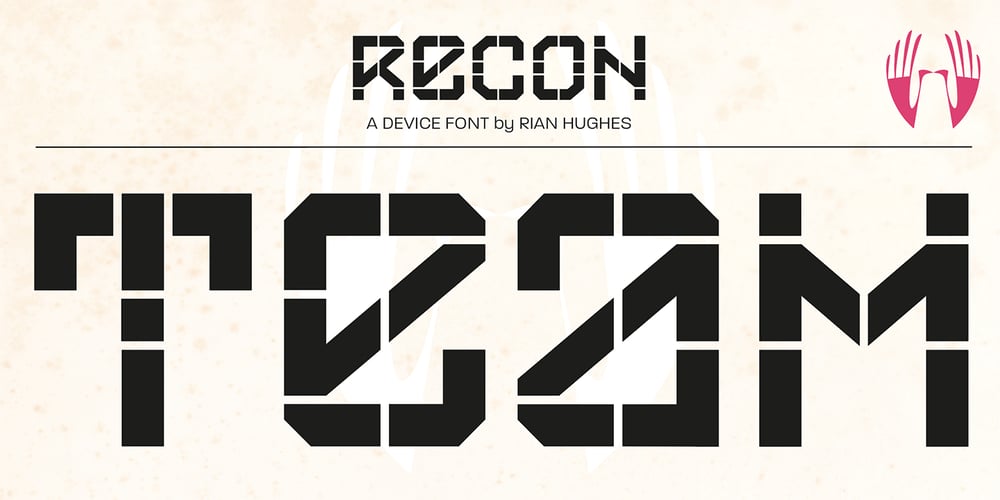
Recon
Recon font
Recon Font Family was designed by Rian Hughes and published by Device. Recon contains 1 styles and family package options. Recon, developed from the 112 Hours numbers-only font of the same name, explores modular forms suggested by quartz displays. The constrained rules of construction, using a limited number of repeated elements, lead to many interesting and unexpected letter-shapes. Suggestive of science fiction movies, technology or military labelling.